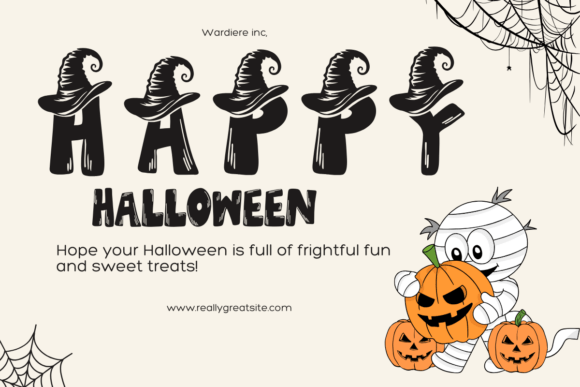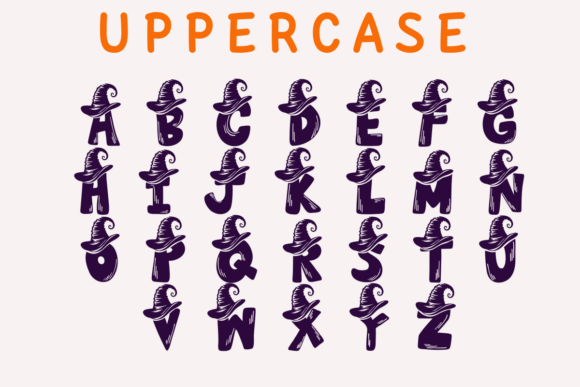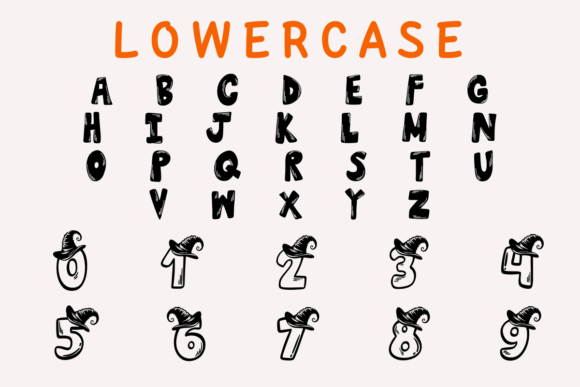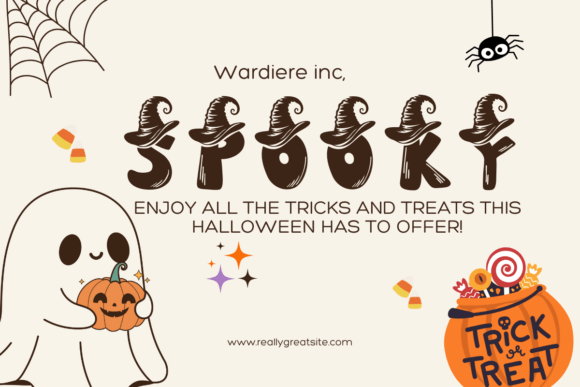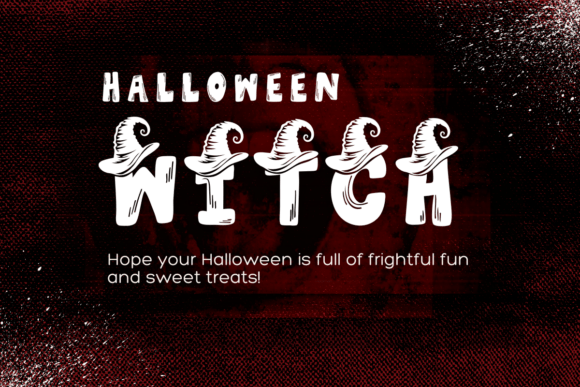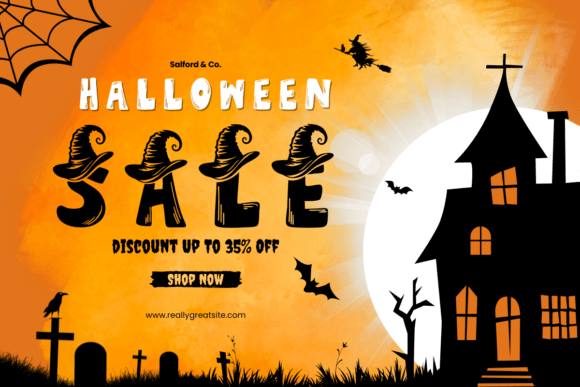
The Magic of Cute Witch Hat Font: A Spooky-Fun Design Essential
As a designer, I’ve had my fair share of late nights scrolling through font libraries, searching for that perfect typeface to bring a project to life. But one font that still makes my heart skip a beat is the Cute Witch Hat Font. I remember working on a Halloween-themed invitation project, and I just couldn’t find a font that captured the right balance of spooky and playful. That was until I stumbled upon Cute Witch Hat – and it’s been a game-changer ever since!
So, what makes Cute Witch Hat so special? Here are a few things I absolutely adore about this font:
- ✨ Unique character combinations: The way the font seamlessly integrates witch hats into the letters is pure magic.
- ✅ High-quality design: The font is meticulously crafted, with attention to detail that’s hard to find in decorative fonts.
- 🎃 Perfect for Halloween-themed designs: Whether it’s invitations, party decor, or product packaging, Cute Witch Hat brings an instant festive vibe.
Of course, no font is perfect, and there are a few quirks to be aware of:
- 🤔 Limited use outside of Halloween context: While the font is amazing for seasonal designs, it might not be the best choice for other projects.
- ⚠️ Some glyphs may require manual adjustment: Depending on the platform you’re using, you might need to tweak certain characters for optimal spacing and alignment.
The Story Behind Cute Witch Hat: A Glimpse into the Designer’s Inspiration
While the actual story behind Cute Witch Hat’s creation remains a mystery, it’s easy to imagine the designer being inspired by classic Halloween iconography and a love for whimsical typography. Perhaps they were experimenting with bold, decorative fonts and stumbled upon the perfect combination of witch hats and letters. Whatever the inspiration, the result is a font that’s equal parts spooky and adorable.
Q: What makes Cute Witch Hat Font unique?
A: Cute Witch Hat Font stands out due to its bold characters and playful integration of witch hats, creating a perfect blend of spooky and fun for Halloween-themed designs.
Q: Does Cute Witch Hat support OpenType features?
A: Yes, Cute Witch Hat Font supports OpenType features, allowing you to access a range of glyphs and stylistic alternates to enhance your designs.
Q: Is Cute Witch Hat easy to read?
A: While Cute Witch Hat is a decorative font, it remains surprisingly legible, especially in larger sizes or when used for short text elements.